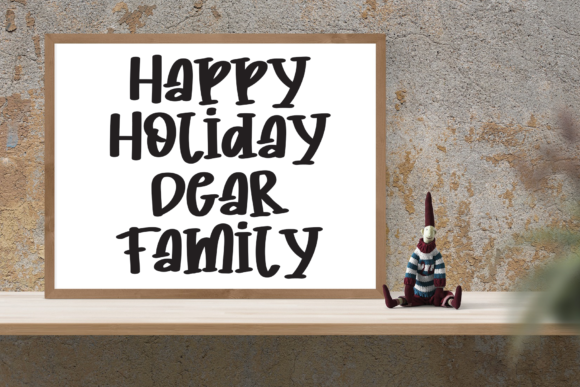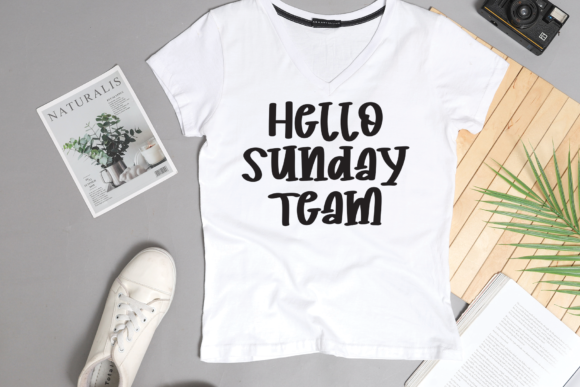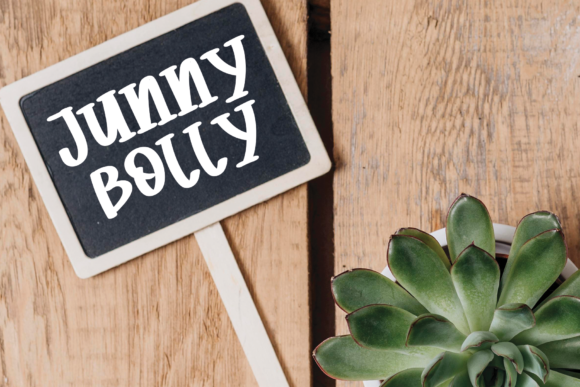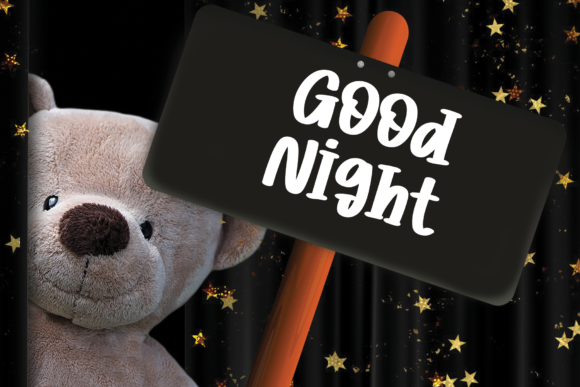
Lemon Juice Font
About Lemon Juice Font
Lemon Juice is a quirky and fun handwritten font. Whether you’re looking for fonts for Instagram or calligraphy scripts for DIY projects, this font will turn any creative idea into a true piece of art!